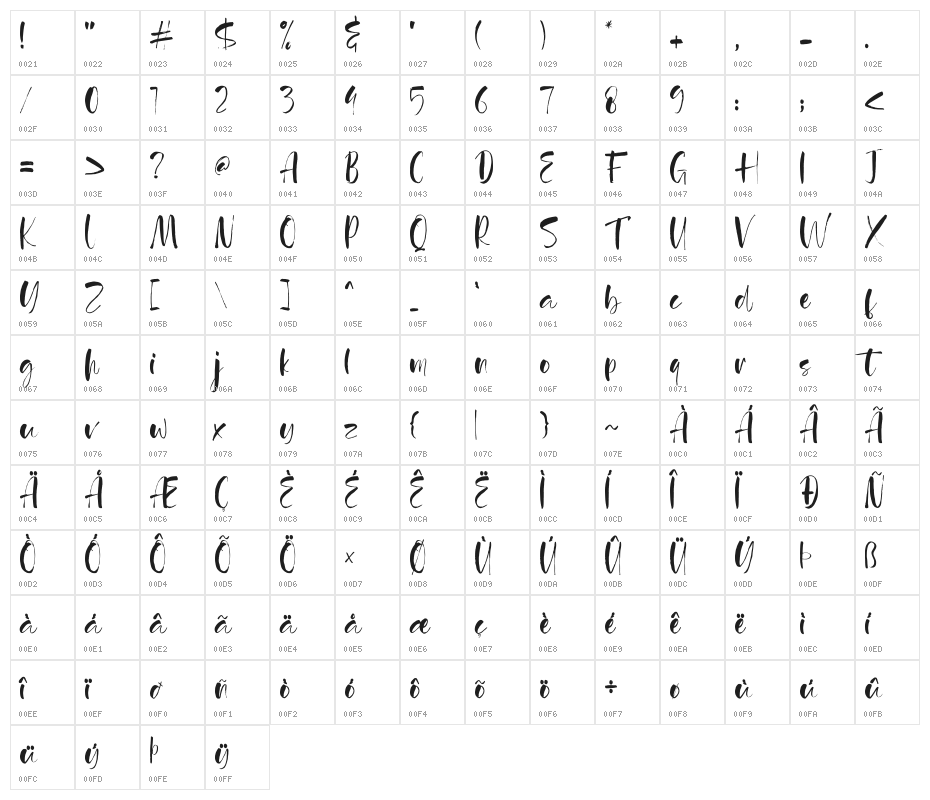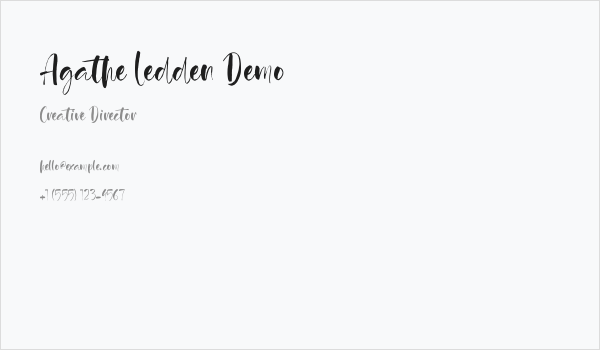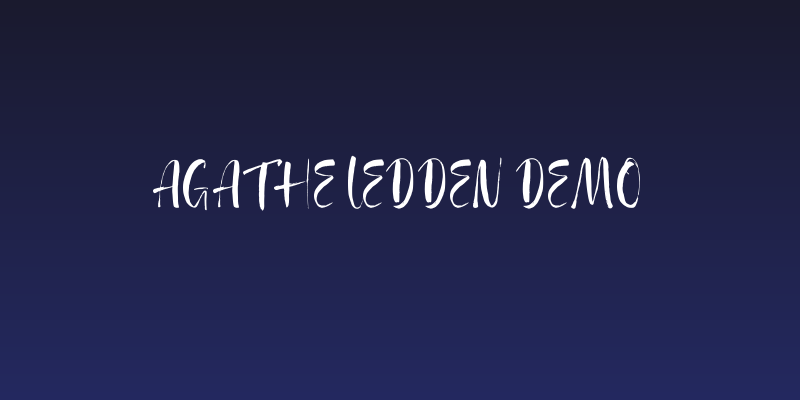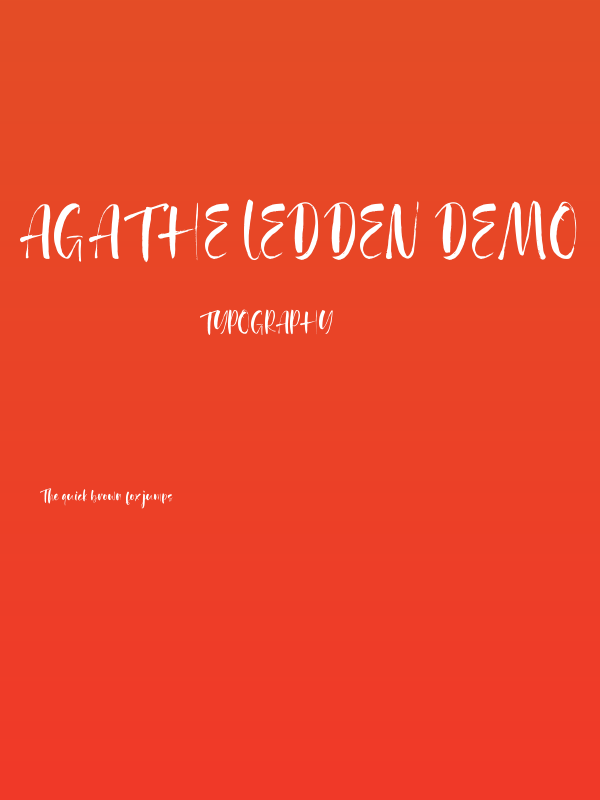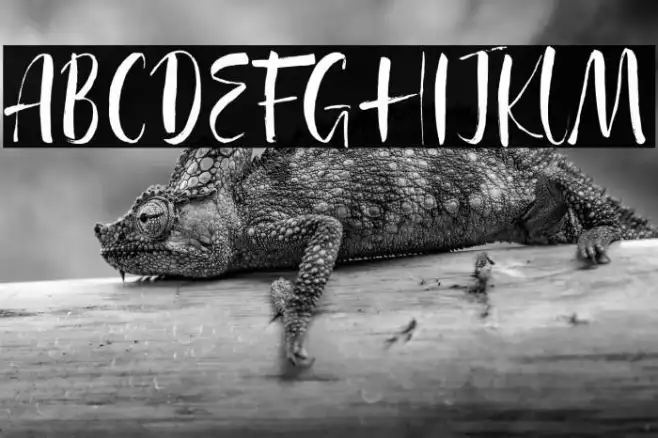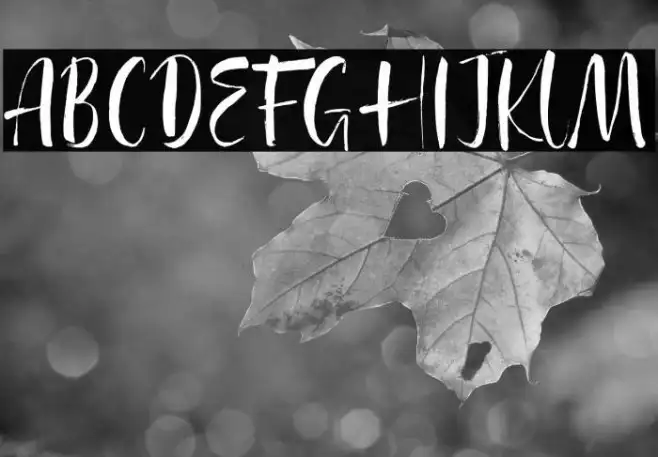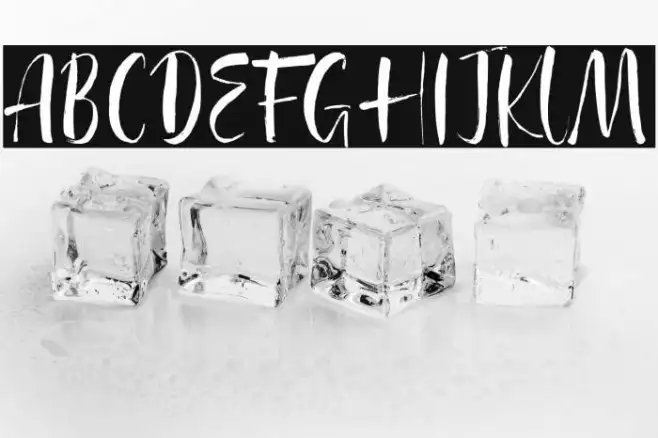
Agathe Ledden Demo Font
Agathe Ledden Demo Description
This font features a dynamic and expressive handwritten style, characterized by its bold and fluid strokes. The letters exhibit a natural flow, with varying thickness that adds a sense of movement and energy. The uppercase letters are tall and slightly condensed, while the lowercase letters maintain a consistent height, enhancing readability. The numerals and special characters are crafted with the same artistic flair, ensuring a cohesive look across all text. The brush-like texture gives it a personal and artistic touch, making it ideal for creative projects.
| Proposed Projects | Ideal for creative projects such as invitations, greeting cards, branding, and social media graphics. |